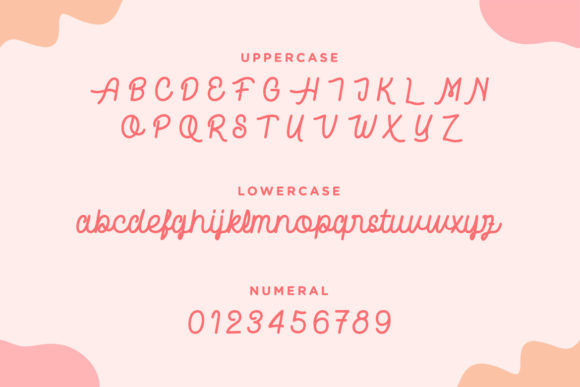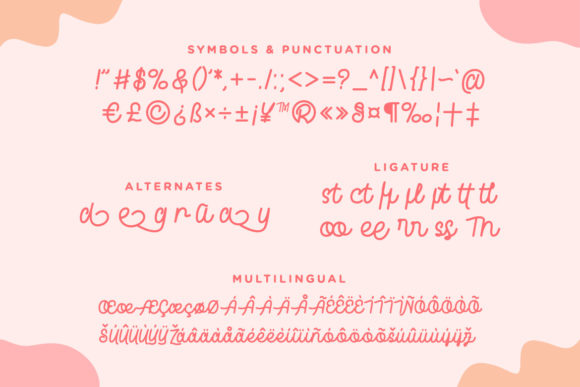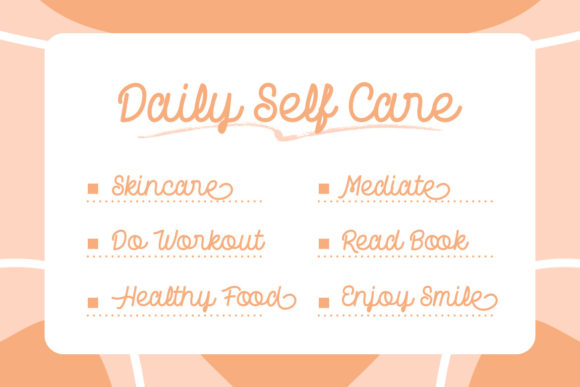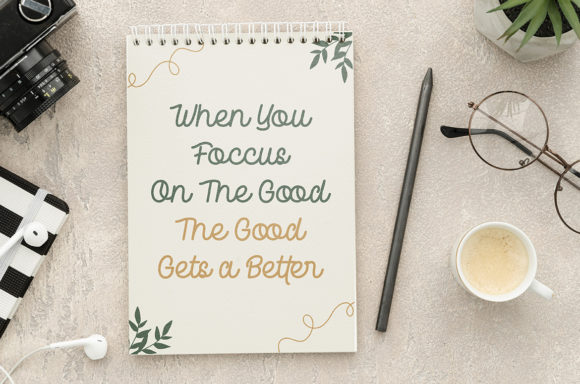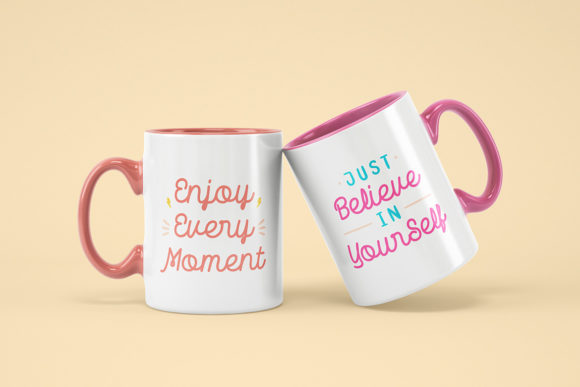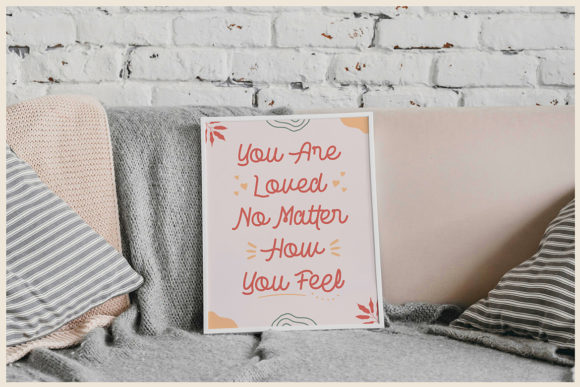
Candola Font: Elevate Your Designs with Elegance and Playfulness
In the world of typography, fonts play a crucial role in conveying the tone and personality of a design. For those seeking a script font that exudes classiness while still feeling fresh and playful, Candola is an excellent choice. This monoline script font has been gaining popularity among designers and crafters alike, and for good reason. In this article, we’ll dive into the features and benefits of Candola Font, exploring how it can elevate your designs and inspire your creativity.
What is Candola Font?
Candola is a monoline script font that strikes the perfect balance between elegance and playfulness. Its classy calligraphic influences are evident in its fluid strokes and refined letterforms, yet it also possesses a fresh and modern feel. This versatility makes Candola an excellent choice for a wide range of design projects, from letterheads and titles to stationery and more.
Key Features of Candola Font
- Monoline script: Candola’s monoline script style gives it a sleek and modern look, perfect for designs that require a touch of sophistication.
- Classy calligraphic influences: The font’s calligraphic roots are evident in its elegant letterforms and fluid strokes, adding a touch of refinement to any design.
- Playful and fresh: Despite its classy influences, Candola still feels playful and fresh, making it an excellent choice for designs that require a bit of whimsy.
- Versatile: Candola’s versatility makes it suitable for a wide range of design projects, from formal letterheads to creative stationery.
Benefits of Using Candola Font
So, why should you choose Candola Font for your next design project? Here are just a few benefits of using this beautiful monoline script font:
- Elegance and sophistication: Candola adds a touch of elegance and sophistication to any design, making it perfect for formal projects or those that require a refined look.
- Creativity and playfulness: Despite its classy influences, Candola still allows for creativity and playfulness in your designs, making it an excellent choice for projects that require a bit of whimsy.
- Time-saving: With Candola, you can create beautiful designs quickly and easily, thanks to its clear and legible letterforms.
Design Ideas Using Candola Font
Now that we’ve explored the features and benefits of Candola Font, let’s take a look at some design ideas to get you started:
- Letterheads and titles: Use Candola to create elegant letterheads and titles that make a lasting impression.
- Stationery and greeting cards: Add a touch of whimsy to your stationery and greeting cards with Candola’s playful and fresh feel.
- Logos and branding: Use Candola to create a sophisticated logo or branding that reflects your business’s personality and values.
- Social media graphics: Create eye-catching social media graphics with Candola’s elegant and refined letterforms.
In conclusion, Candola Font is an excellent choice for designers and crafters seeking a monoline script font that exudes elegance and playfulness. Its versatility, clear letterforms, and compatibility with a wide range of devices and software make it an ideal choice for various design projects. Whether you’re creating formal letterheads or playful stationery, Candola is sure to elevate your designs and inspire your creativity.